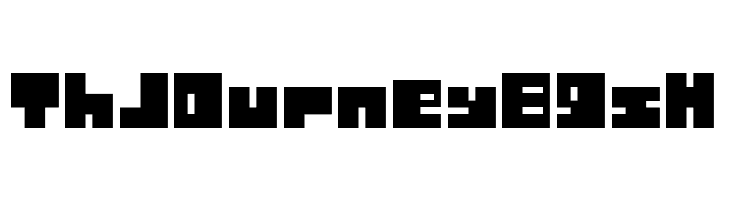
A festive, elegant cursive font with bold, sweeping strokes and decorative flourishes.
A fluid and elegant script font with a handwritten feel.
A bold, geometric font with angular lines and a modern industrial feel.
A whimsical, looping font with continuous strokes and decorative outlines.
A playful, casual handwritten font with smooth, flowing lines and a friendly appearance.
A bold, playful, hand-drawn font with a friendly and energetic style.
A playful and elegant handwritten script font with medium contrast.
A bold, modern font with high contrast and a strong, impactful presence.
A bold, slanted, and angular font with a modern and dynamic style.
A playful, casual handwritten font with rounded, consistent strokes.
Casual, hand-drawn sans-serif with tall, narrow, playful letters.
A bold, Gothic-inspired font with sharp serifs and dramatic styling.
A bold, whimsical font with swirling embellishments and a playful style.
A bold, flowing script font with elegant, connected letterforms.
A bold, expressive handwritten font with dynamic strokes and artistic flair.
An industrial-themed font with characters resembling interconnected pipes.
An elegant, flowing script font with a sophisticated and artistic flair.
A bold, pixelated font with a retro, 8-bit digital aesthetic.
A casual, handwritten font with smooth curves and a friendly appearance.
A clean, geometric font with a modern aesthetic.
A playful, casual handwritten font with dynamic strokes.
A dynamic and flowing script font with elegant, cursive letterforms.
A graceful script font with fluid, cursive lines and elegant flourishes.
A futuristic, 3D, italicized font with bold geometric outlines.
A lively, expressive handwritten font with smooth, flowing strokes and playful loops.
A bold, three-dimensional font with a strong, blocky design.
A bold, expressive script font with a hand-painted look.
A dynamic and energetic script font with fluid, connected letterforms.
A delicate and flowing script font with an elegant, handwritten style.
A sophisticated script font with elegant, flowing cursive strokes.
A delicate, flowing script font with elegant cursive letterforms.
A bold, expressive brush-style font with dynamic, hand-painted characteristics.
A bold, geometric font with a modern and edgy style.
A tall, playful sans-serif with rounded, hand-drawn qualities.
A playful, casual handwritten font with fluid strokes and a dynamic feel.